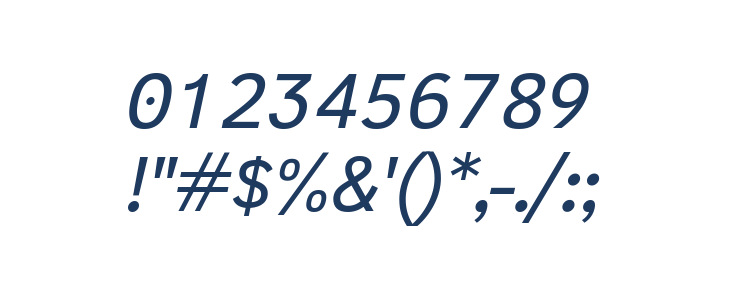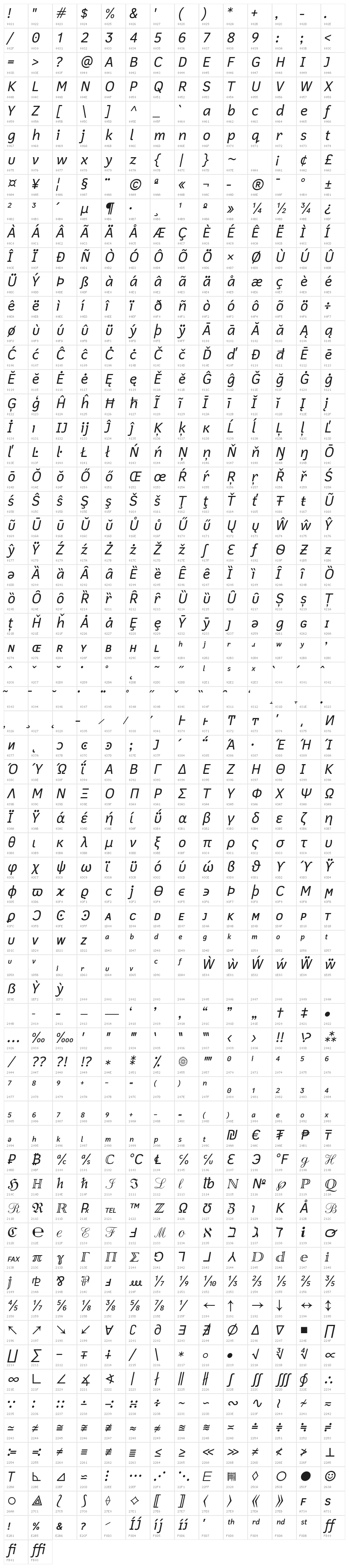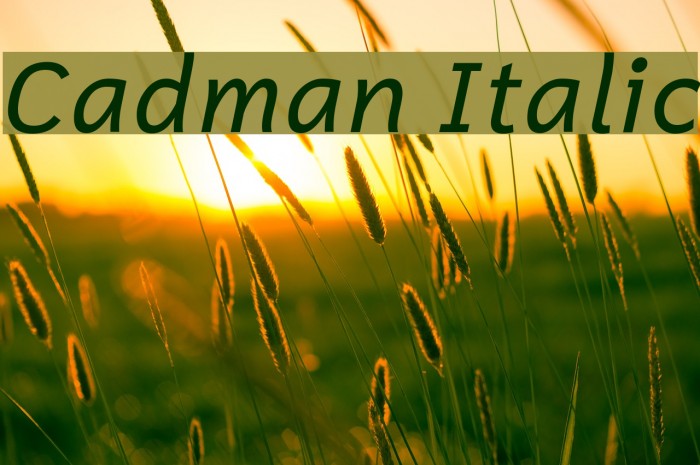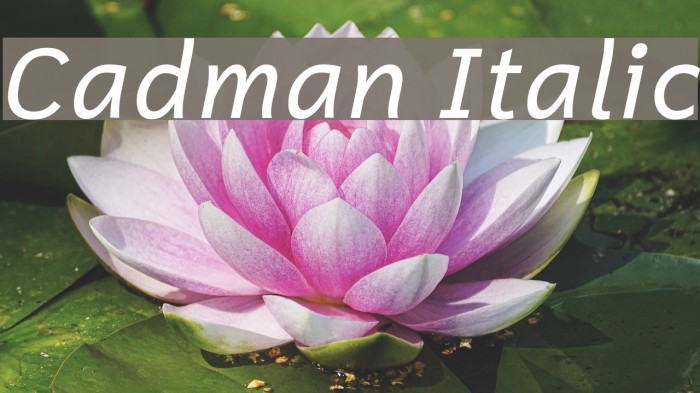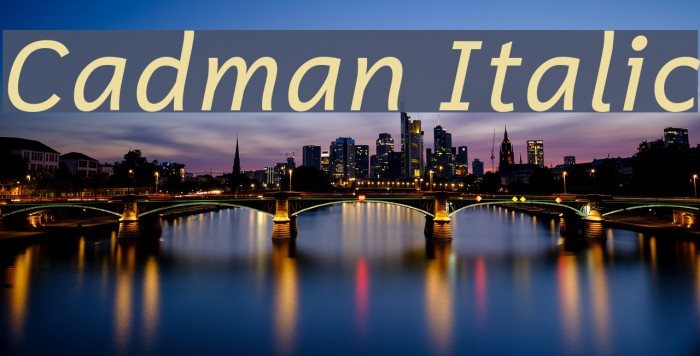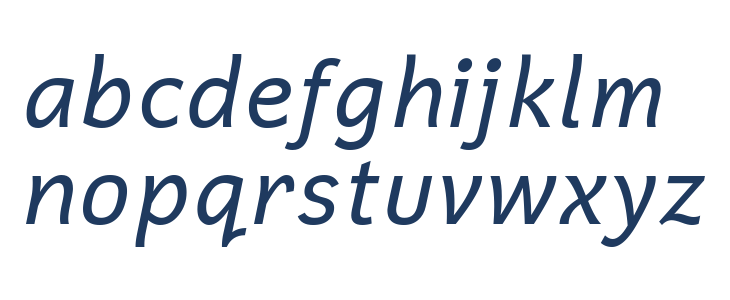
Cadman Italic Font
Cadman Italic Description
This typeface features a sleek and modern italic style, characterized by its clean lines and subtle curvature. The uppercase letters maintain a consistent height, while the lowercase letters exhibit a gentle slant, adding a dynamic flow to the text. The numerals are straightforward and align well with the overall design, ensuring readability. Special characters are crafted with precision, maintaining the font's cohesive aesthetic. The font's design is versatile, making it suitable for both digital and print media, where a contemporary and professional appearance is desired.